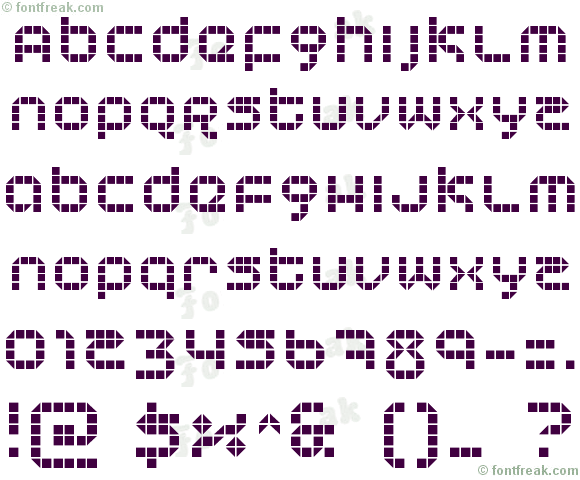
Tranceform
About Tranceform
Tranceform, designed by Andreas M. Nylin in 2001 and offered as freeware by Dustbust Fonts, is a striking display font that captures attention with its unique visual style. This font falls within the decorative category, characterized by its bold, geometric shapes and sharp angles. The stroke weight is consistent throughout, providing a modern, uniform look that is both clean and impactful. The letterforms are spaced closely together, creating a cohesive feel, while the decorative elements, including angular cuts and unexpected curves, add an avant-garde touch that makes Tranceform stand out.
Tranceform is ideal for a variety of creative applications. It excels in design contexts where boldness and modernity are essential, such as movie posters, music album covers, and promotional materials for events or festivals. Its eye-catching aesthetic also makes it a great choice for branding projects, particularly for businesses in the creative sector, like art galleries or design studios. Additionally, Tranceform can be effectively used in digital content, such as social media graphics and website headers, where a contemporary look is desired.
The target audience for this font includes graphic designers, small business owners, and content creators looking to make a bold statement. Whether crafting an invitation or designing a marketing campaign, Tranceform provides the visual flair that can elevate any project.
What sets the Tranceform font apart is its distinct combination of modernity and artistic flair, making it a versatile choice for anyone seeking to add a touch of creativity to their work. With its unique aesthetic and free availability, the Tranceform font free download offers an exceptional opportunity for designers to enhance their projects with a font that truly stands out.